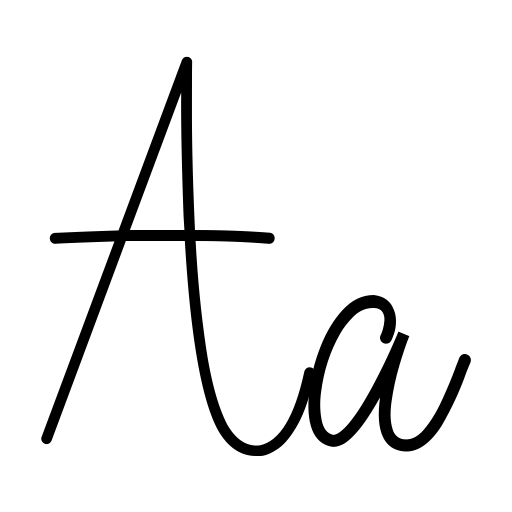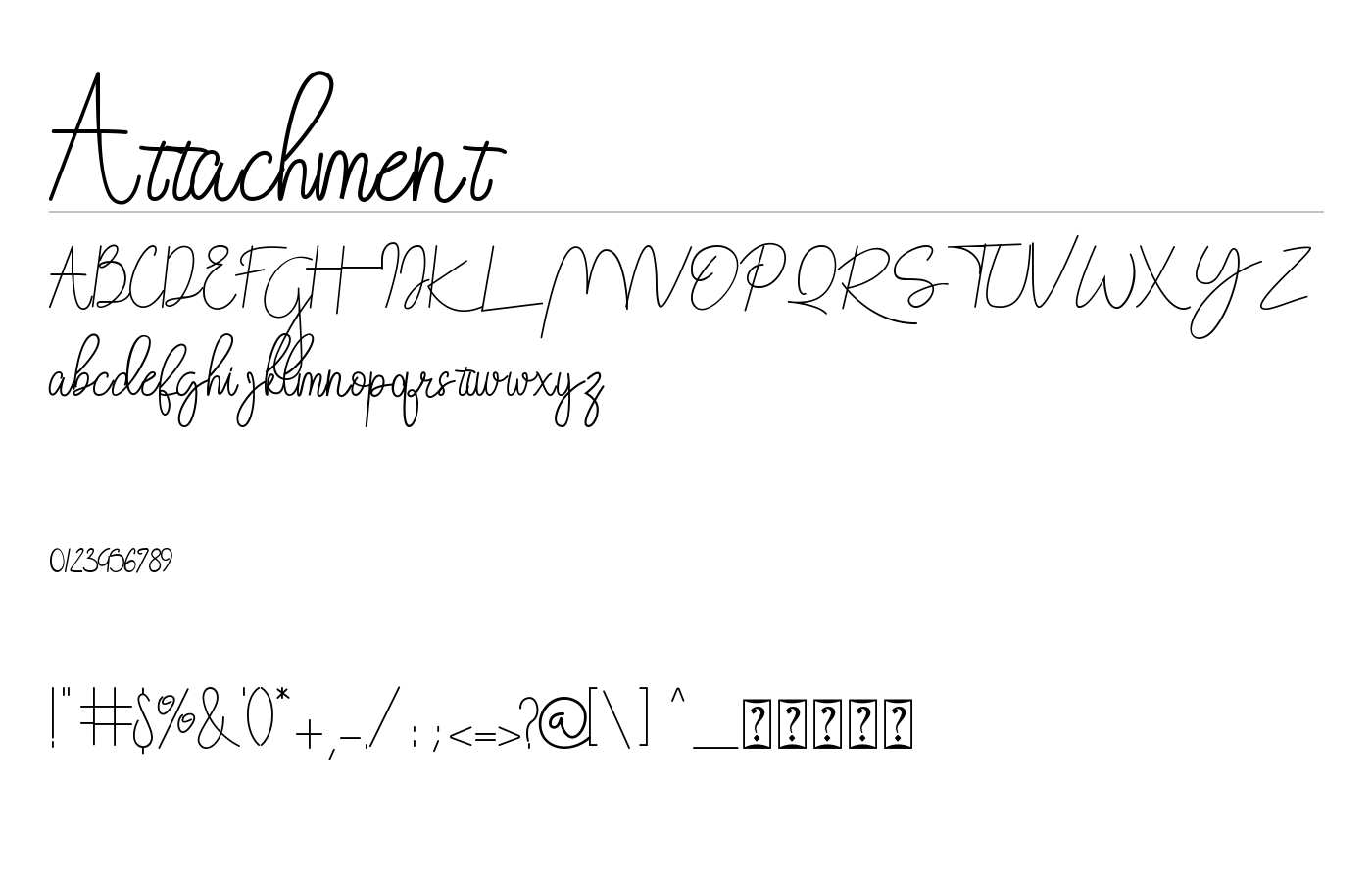
Attachment Font is a delicate, handwritten script font with a thin, elegant stroke that creates a light and airy feel. Its tall, narrow letterforms and fluid, cursive connections give it a personal, artistic touch, making it ideal for creative projects, invitations, and branding that seeks a refined yet approachable vibe. This font works beautifully in contexts where a stylish, handwritten look is desired to convey warmth and individuality.
Attachment Font
About Attachment Font
| Font family | Attachment Font |
| Designer | Lettersiro 2018 |